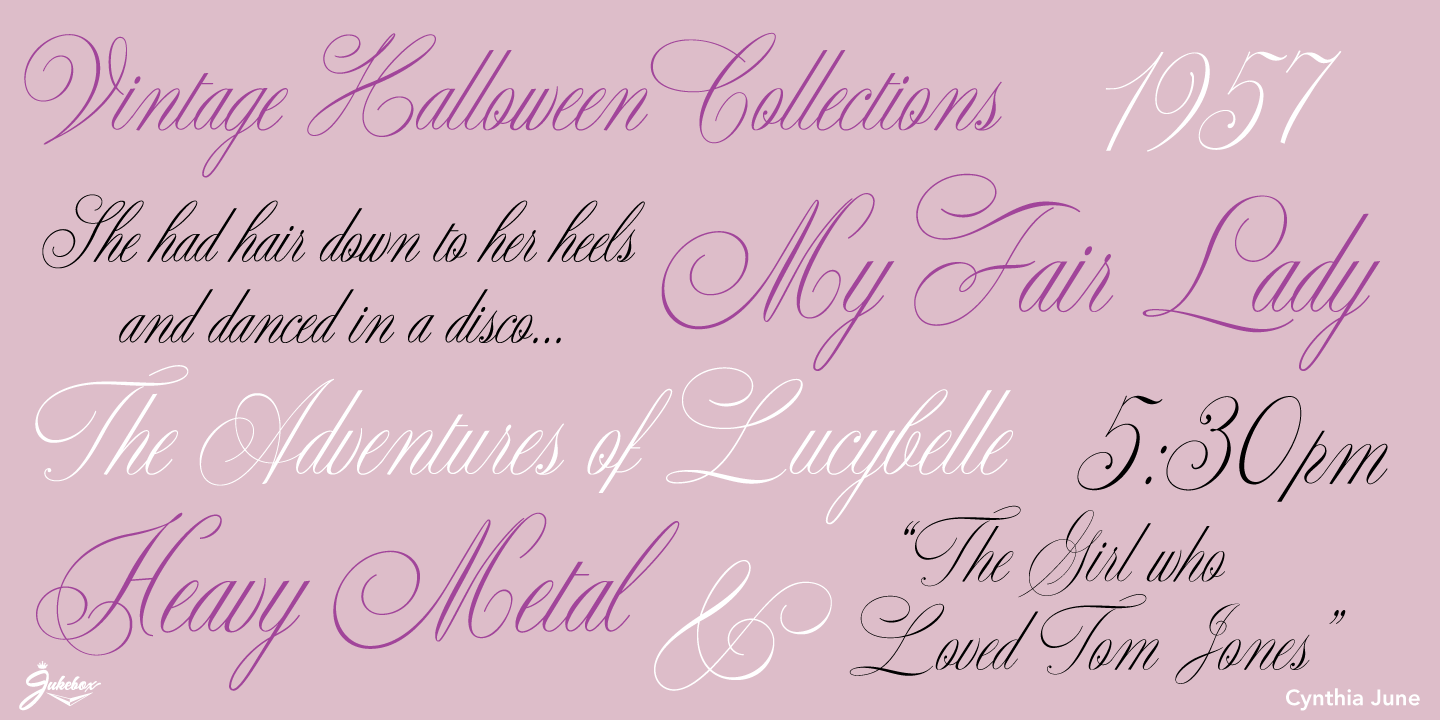
The Cynthia June JF Font is a charming and distinctive choice for projects that aim to evoke a warm, handcrafted, and personalized aesthetic. Its unique handwritten style makes it perfectly suited for personal branding, boutique product labels, greeting cards, scrapbooking projects, social media graphics with a friendly vibe, blog headers, and any design that benefits from a genuine, artisanal, and approachable touch. Its organic character makes it ideal for conveying a sense of authenticity, sincerity, and creative individuality.
What makes Cynthia June JF Font so exciting is its delightful imperfections and natural flow, mirroring the beauty of genuine handwriting. Each letter feels unique, contributing to an overall impression of thoughtful craftsmanship rather than rigid digital precision. This font isn't just about conveying words; it's about adding a personal signature to your message, making it feel intimately connected to a human touch. It effortlessly blends casual elegance with a charming whimsicality, ensuring your designs stand out with a relatable and heartfelt appeal. The subtle variations in stroke and baseline contribute significantly to its authentic, hand-drawn look.
The Cynthia June JF Font family typically focuses on delivering a consistent yet naturally varied handwritten appearance. You’ll generally find a strong regular style that embodies its core personal aesthetic. Given its handwritten nature, some versions might offer alternative characters, ligatures, or even stylistic sets to provide more authentic variations and prevent repetitive letterforms, further enhancing its bespoke feel. The emphasis is on maintaining its distinctive, friendly, and uniquely crafted charm across all applications, making each word appear as if it was individually penned.
Whether you're creating a heartfelt invitation, designing a unique brand identity for a small business, or crafting engaging content that speaks directly to your audience, the Cynthia June JF Font Free Download offers an indispensable tool. Its artistic appeal and undeniable charm make it a standout choice for any project that aims to be warm, memorable, and genuinely personal.